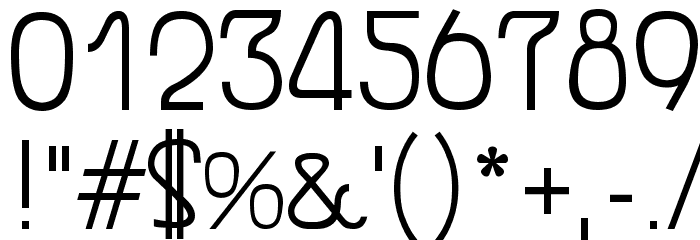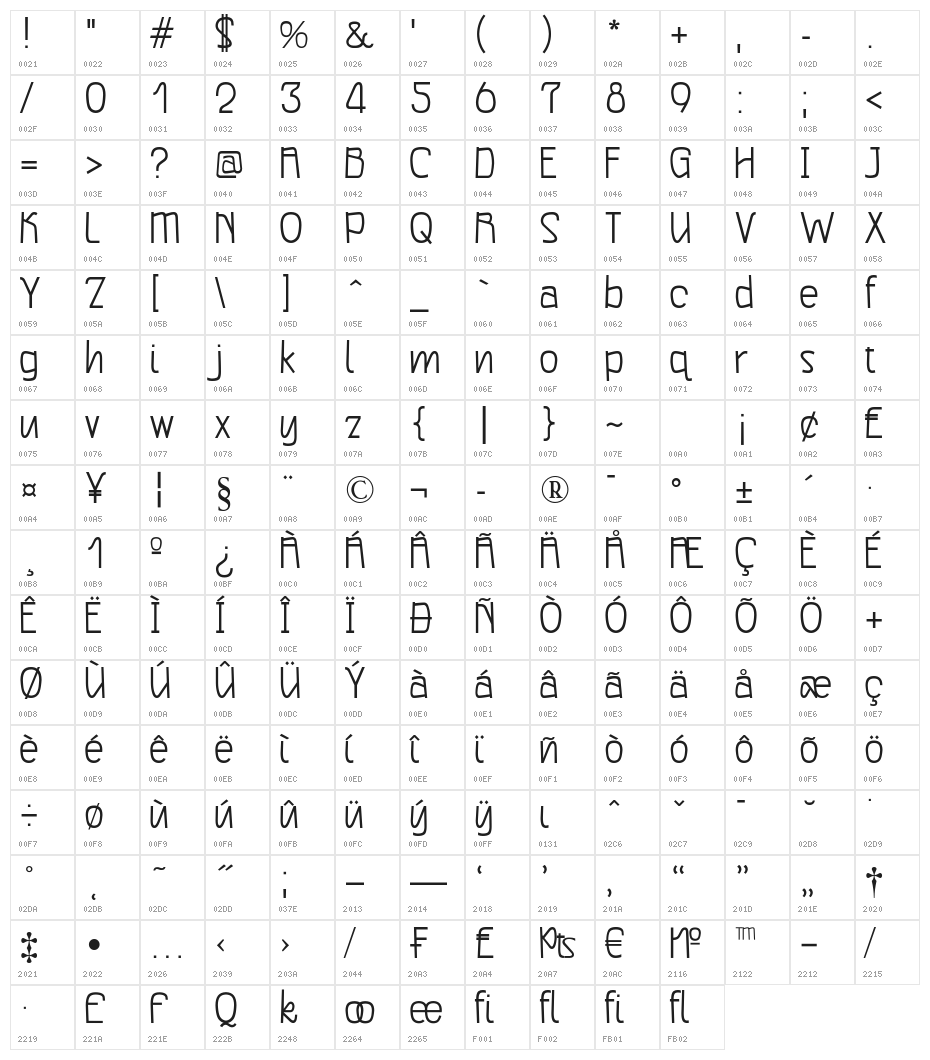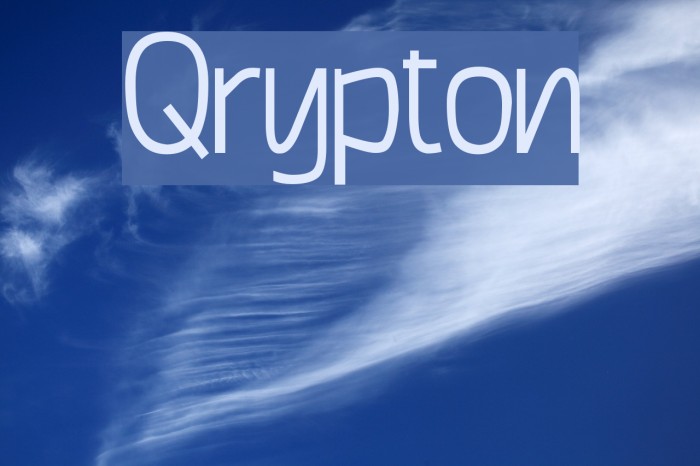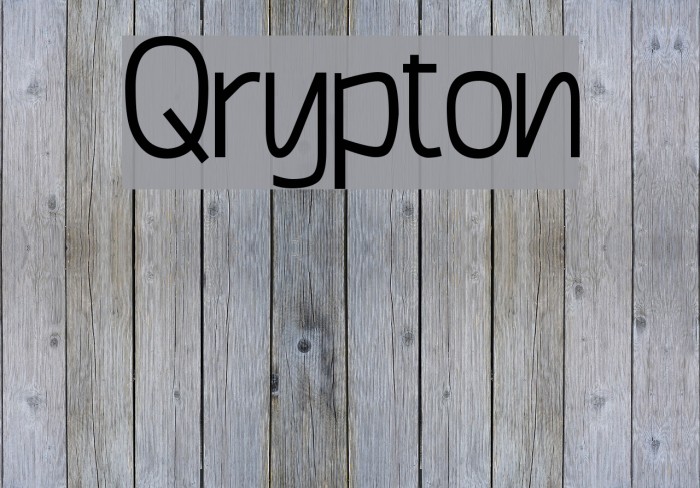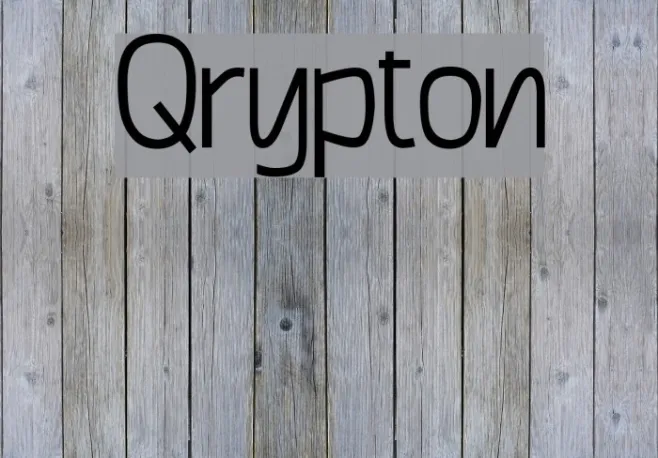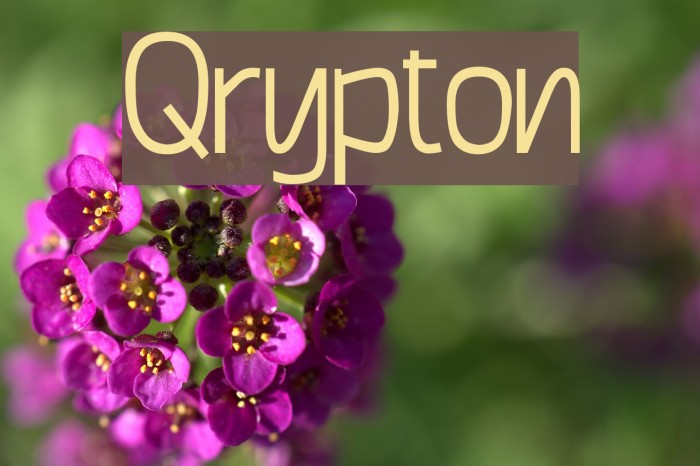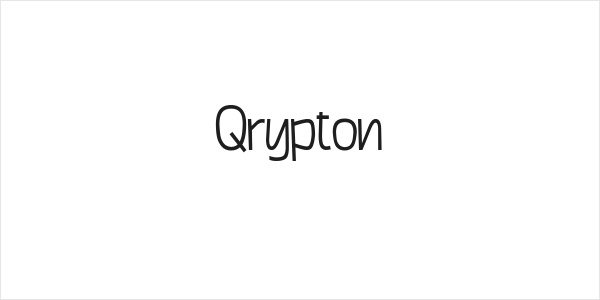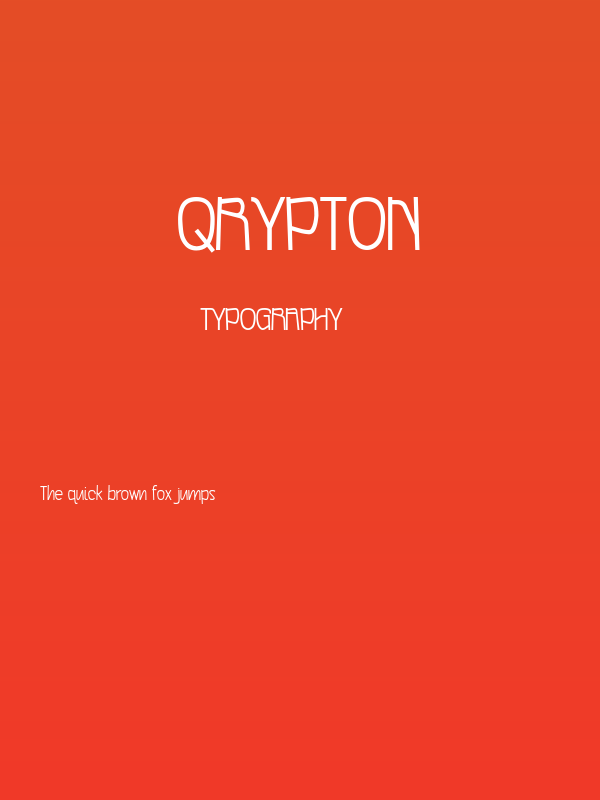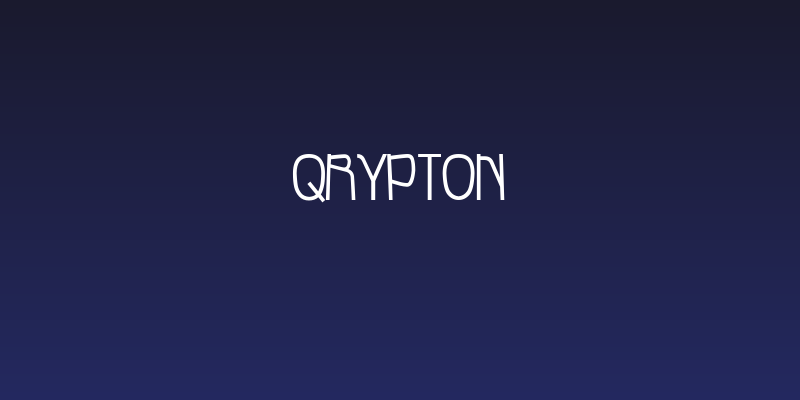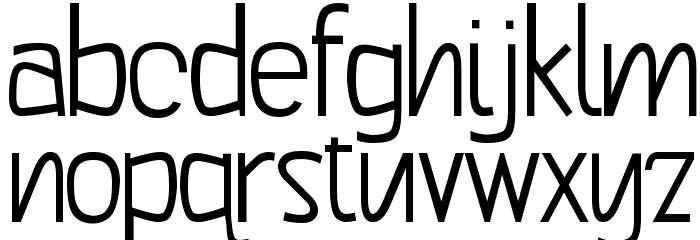
Qrypton Font
Qrypton Description
This font features a modern and geometric design with clean lines and a distinct futuristic feel. The uppercase letters are tall and slightly condensed, giving a sleek and sophisticated appearance. The lowercase letters maintain a consistent style, with rounded edges that add a touch of softness to the overall look. The numerals are clear and legible, matching the style of the alphabet. Special characters are well-integrated, ensuring versatility in various design contexts. The uniform stroke width across all characters contributes to a harmonious and balanced aesthetic.
| Proposed Projects | Ideal for technology branding, modern advertising, and futuristic design projects. |